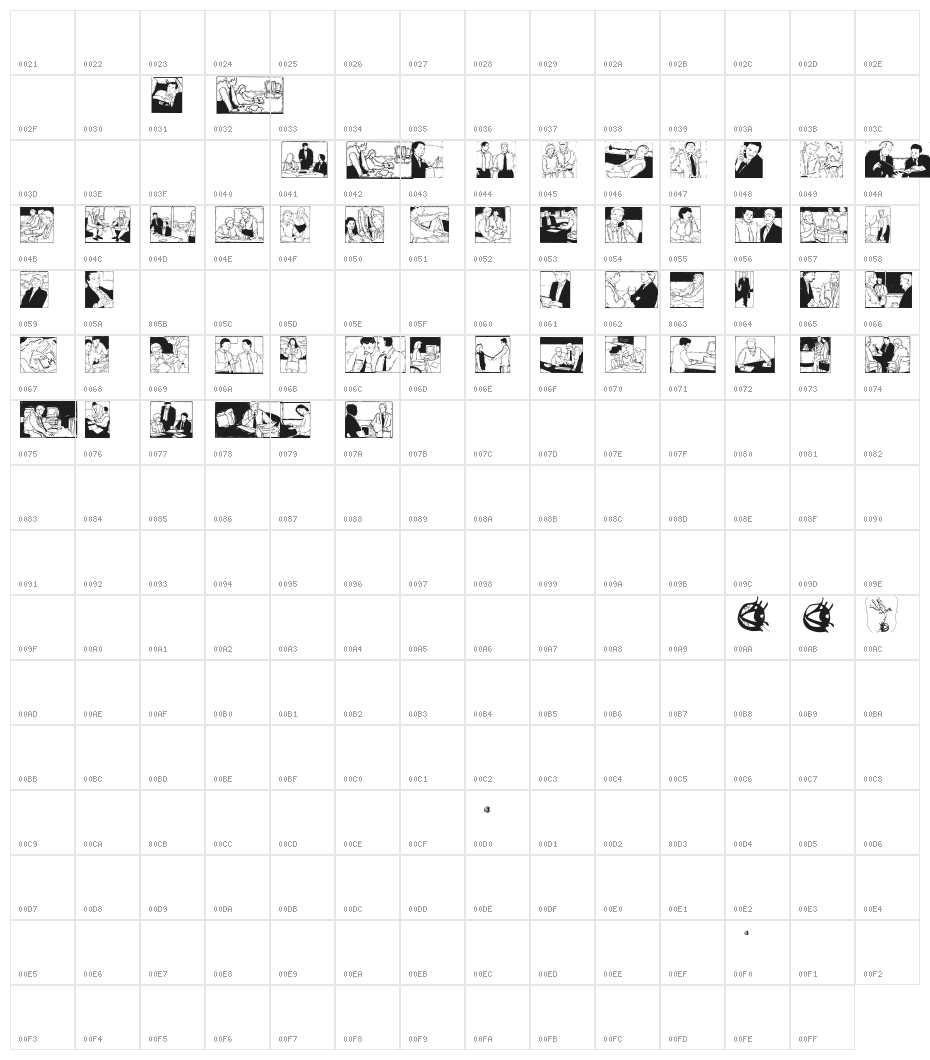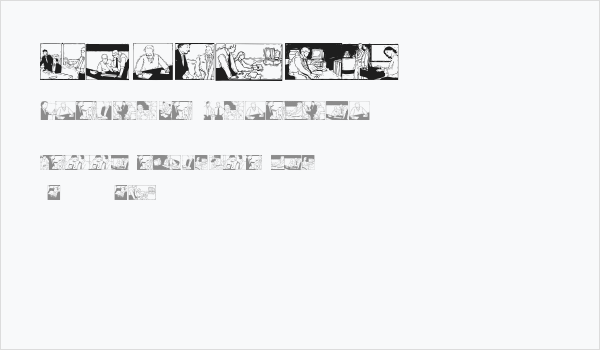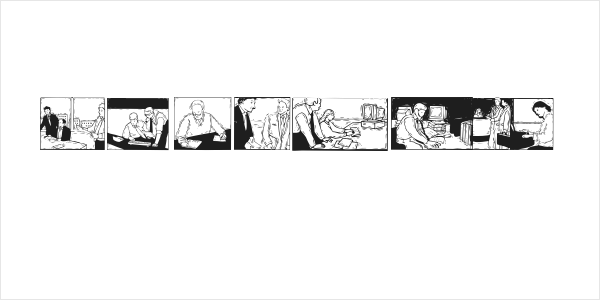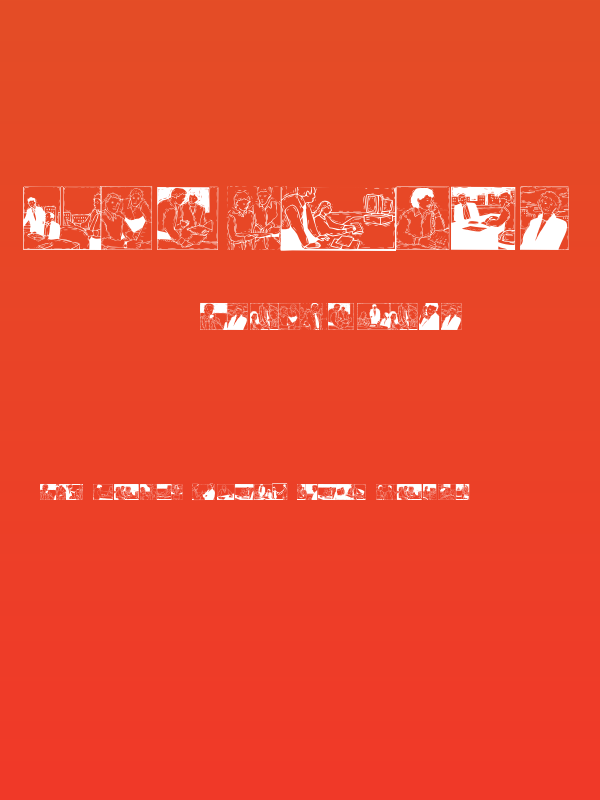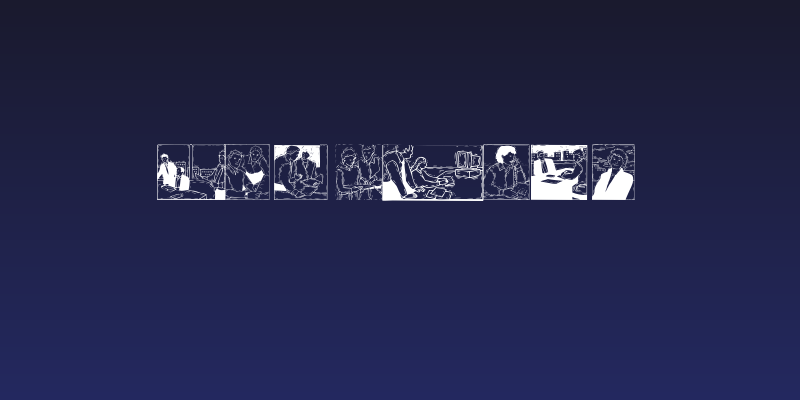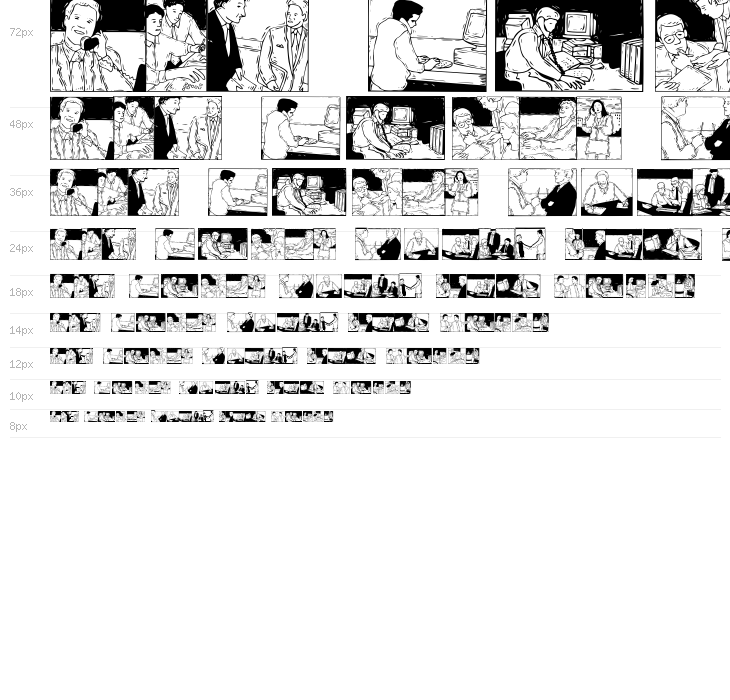
MoreBusy Font
MoreBusy Description
A decorative display font composed of black-and-white comic-style illustrations depicting busy office and business scenes for each character. Each glyph is a unique, detailed drawing rather than a traditional letterform, creating a narrative visual effect.
| Overall Style | Decorative, Comic, Narrative |
| Use Case | Display, Posters, Themed Graphics, Editorial Art |
| Proposed Projects | Editorial illustrations, creative posters, comic book titles, themed event invitations, branding for business-related campaigns. |